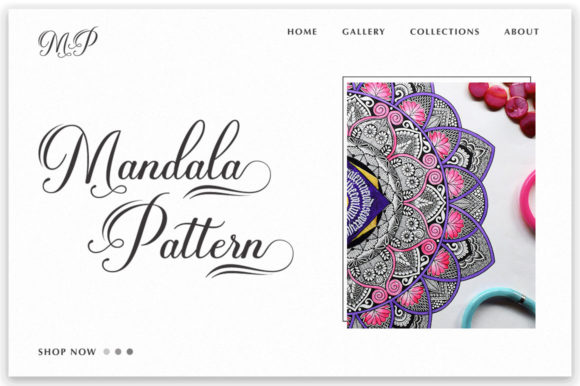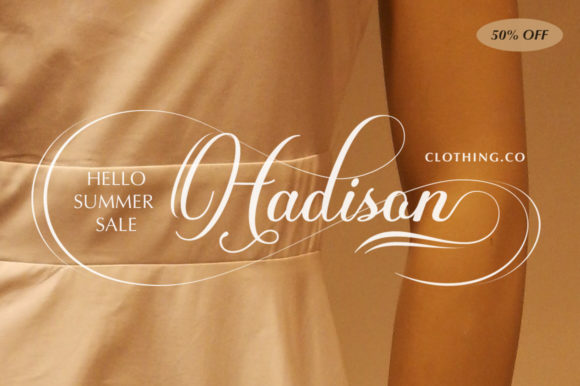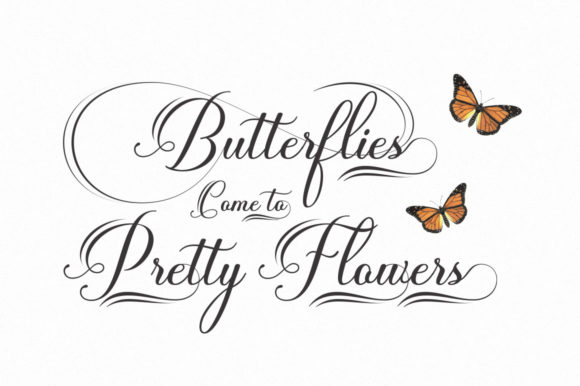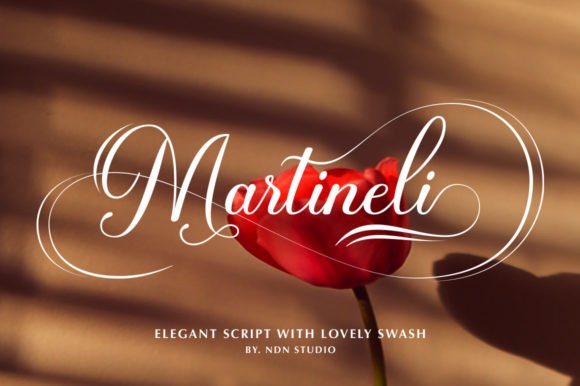
Introduction to Martineli Script Font
Martineli Script is a lovely script font featuring charming, playful characters that seem to dance along the baseline.
Add this font to your most creative ideas, and notice how it makes them stand out .
Martineli Script Font offers exceptional quality and versatility, making it a valuable addition to your design toolkit. Whether you’re creating for personal projects or commercial use, Martineli Script Font delivers professional results.